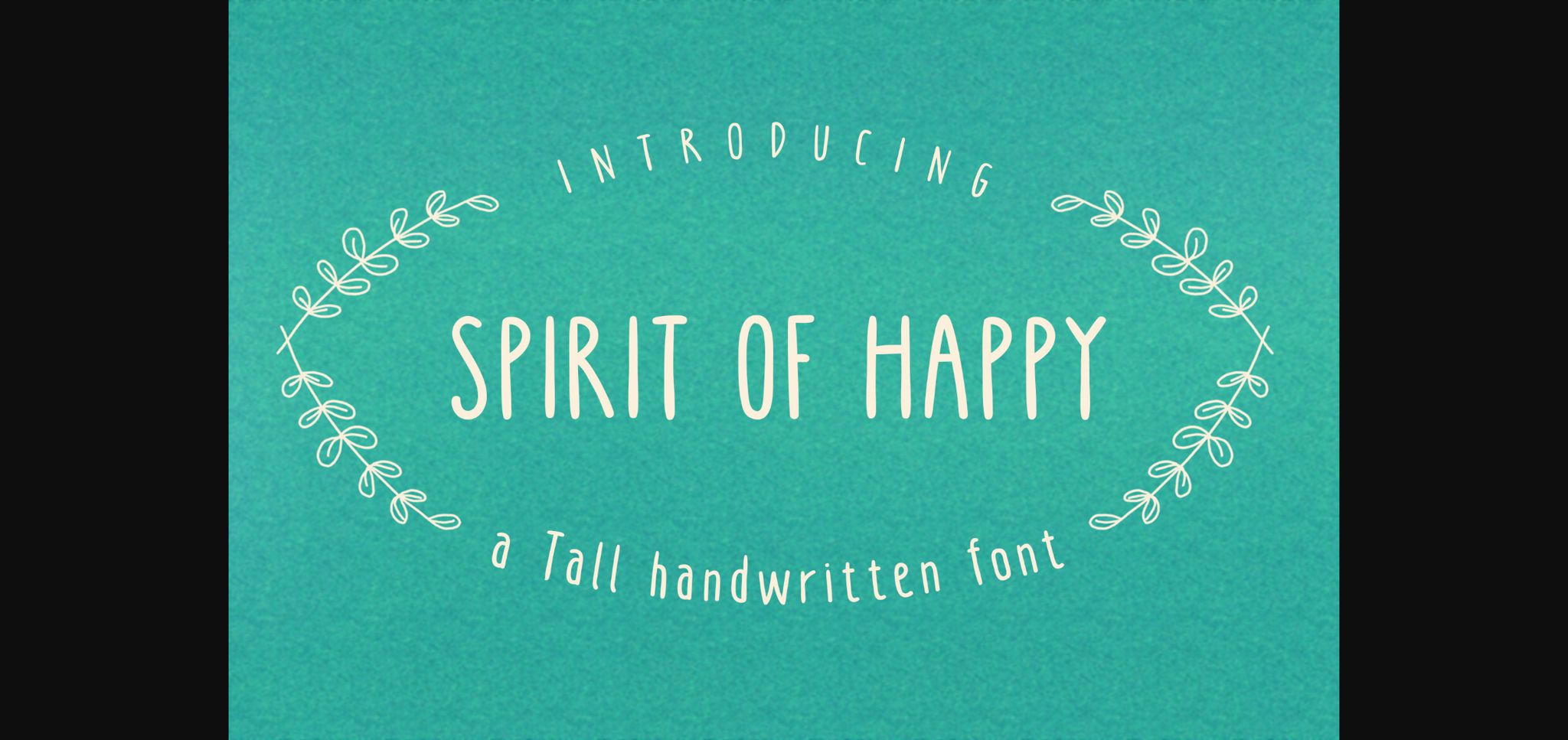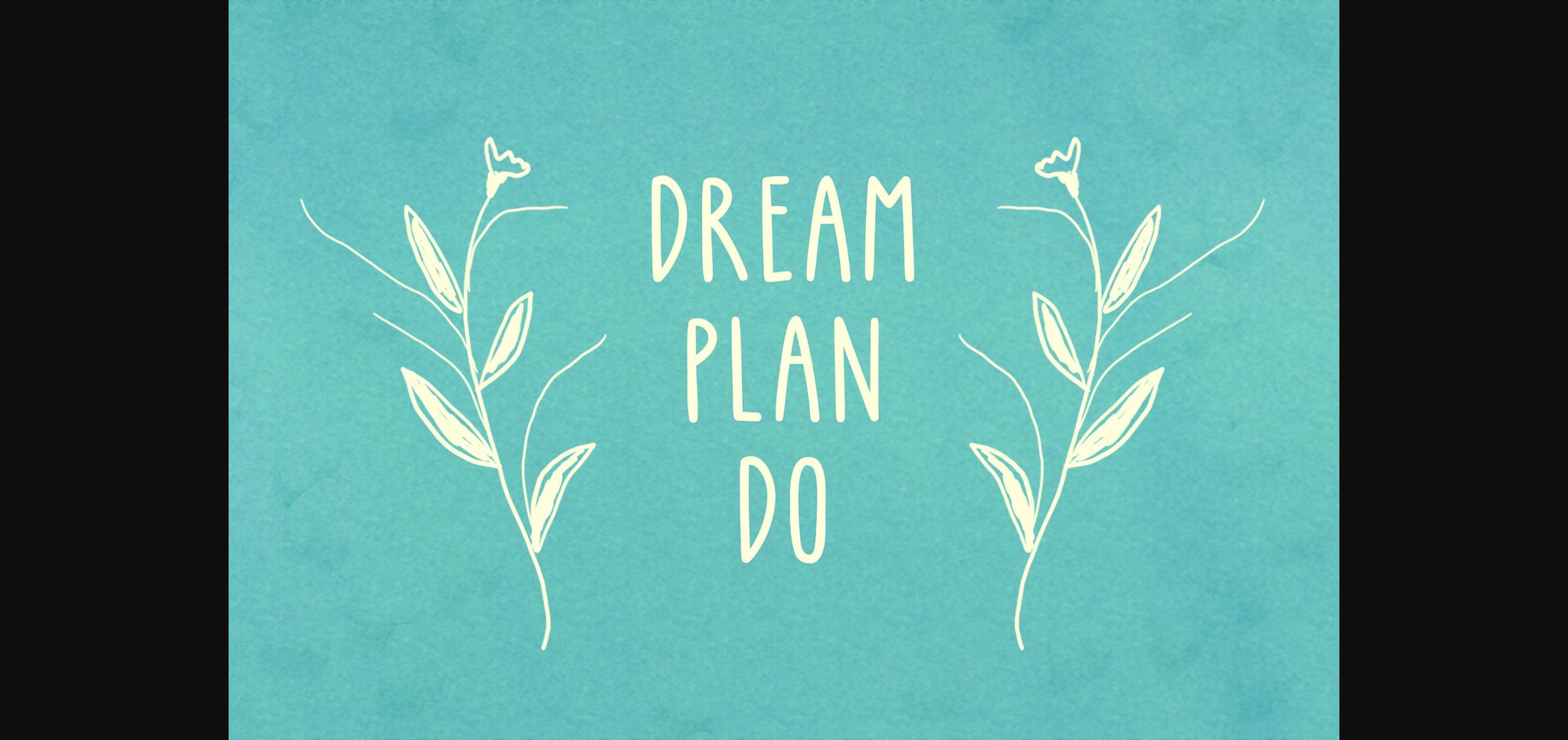
About Spirit of Happy Font
Spirit Of Happy is a cute and friendly handwritten sans serif font. Its natural and unique style makes it incredibly fitting to a large pool of designs. This tall, playful typeface is perfect for invitations, greeting cards, logos, and more. And it even includes cute lovable floral!